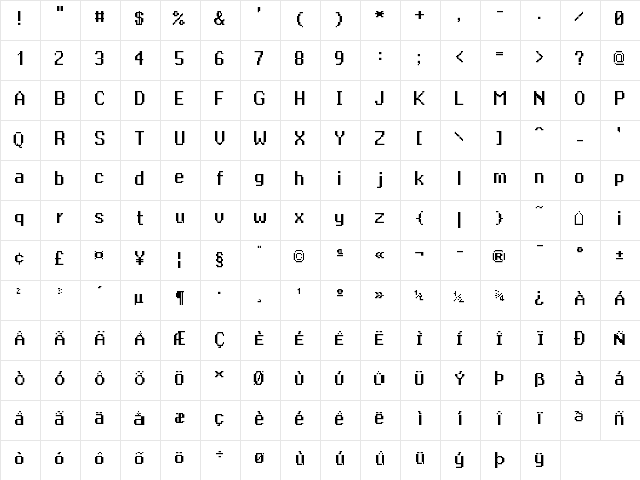
Swiss Siena Regular
Design Context for Swiss Siena Typeface
Swiss Siena is a composed and adaptable typeface that performs quietly and consistently across a wide range of design contexts.